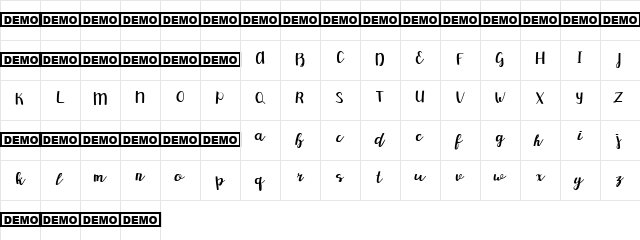
Complete Redbus Regular glyph index. Displaying only characters natively supported by Redbus Regular font.
Redbus is a composed and adaptable typeface that performs quietly and consistently across a wide range of design contexts.